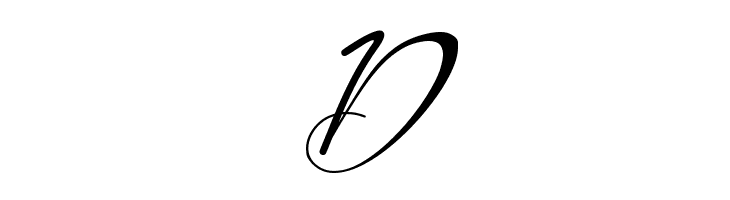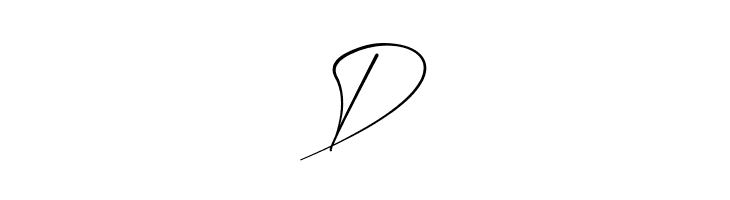
A flowing, cursive script font with elegant, interconnected strokes.
A graceful, flowing script font with elegant curves and delicate strokes.
An elegant and ornate script font with intricate swirls and decorative flourishes.
A decorative script font with elegant swirls and loops, perfect for adding sophistication.
An elegant script font with fluid, flowing lines and sophisticated curves.
A bold, flowing script font with elegant curves and a dynamic style.
A delicate and flowing script font with elegant, cursive letterforms.
An elegant script font with flowing, cursive letters and intricate swashes.